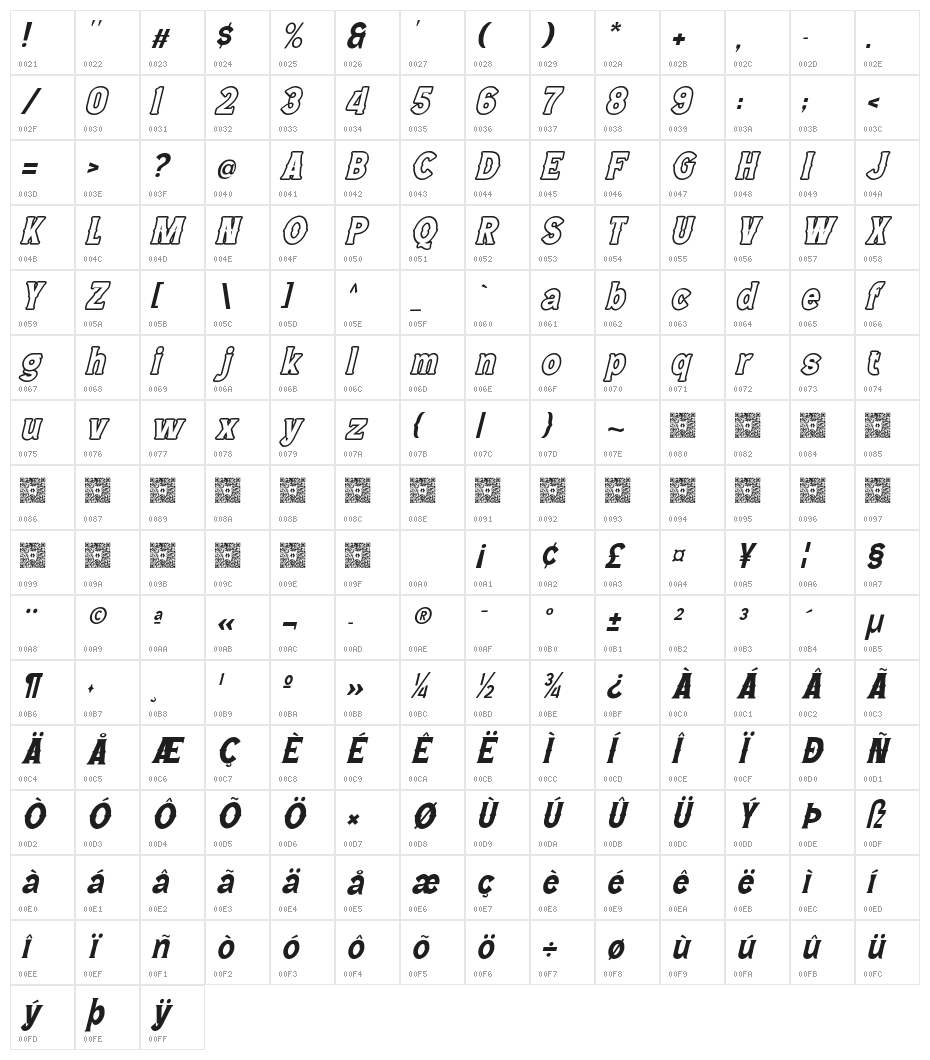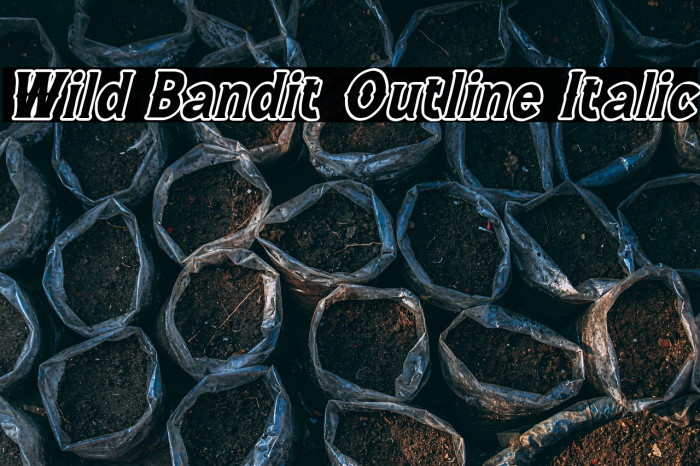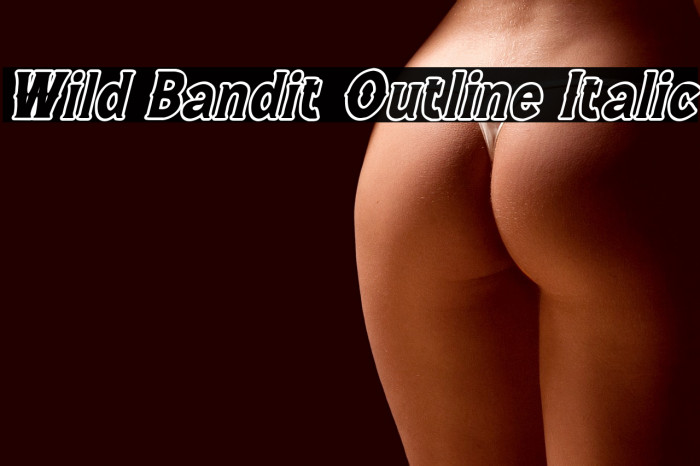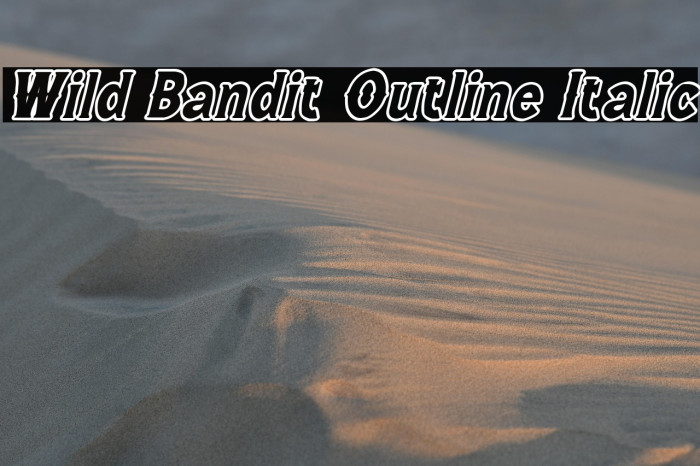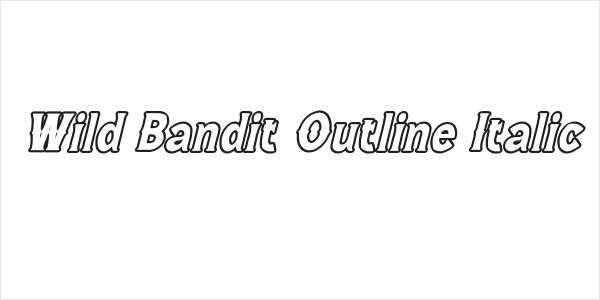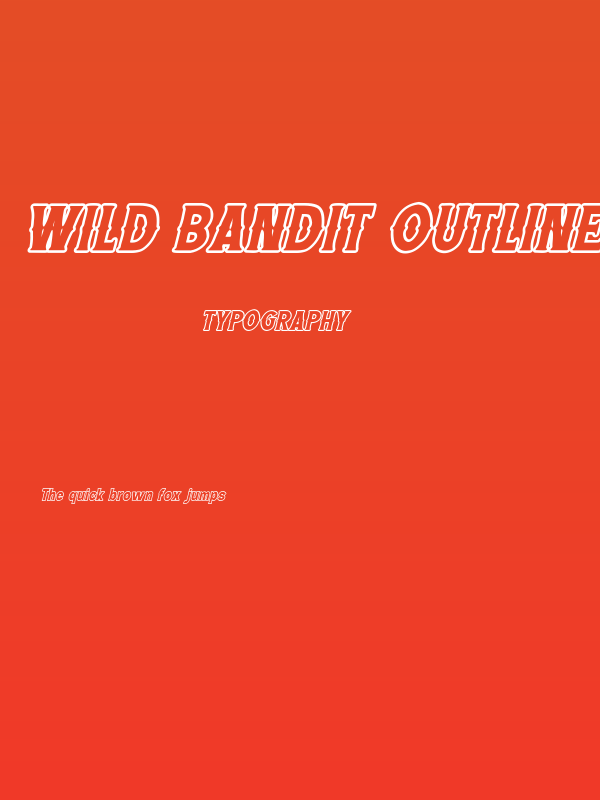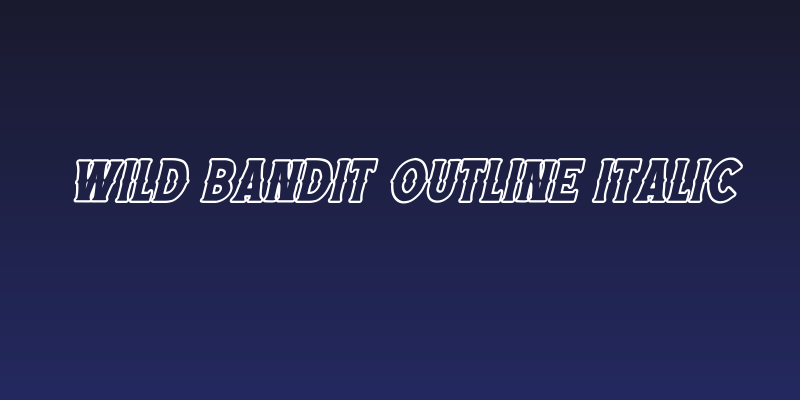
Wild Bandit Outline Italic Font
Wild Bandit Outline Italic Description
This font features a bold, outlined style with a distinct italic slant, giving it a dynamic and energetic appearance. The uppercase and lowercase letters are well-defined with a strong presence, making them ideal for attention-grabbing designs. The numbers and special characters maintain the same bold outline, ensuring consistency across all glyphs. The font's playful yet assertive style makes it suitable for a variety of creative projects.
| Proposed Projects | Ideal for posters, headlines, branding, and any design requiring a bold statement. |